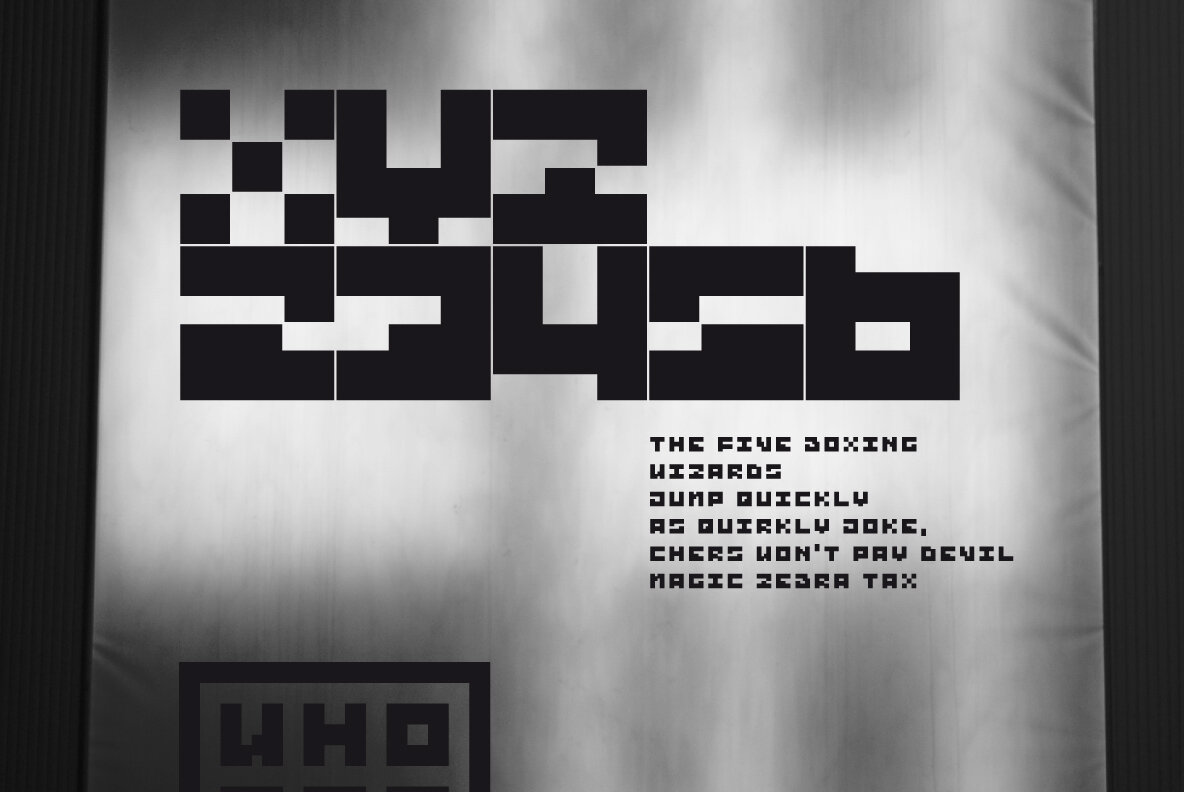
BAJT Font
BAJT
BAJT Italic
Geometric, pixel-art-style, minimalist font. BAJT contains uppercase letters, numbers and a large range of punctuation. Use in graphics, illustrations, posters, logos, t-shirts, and much more..